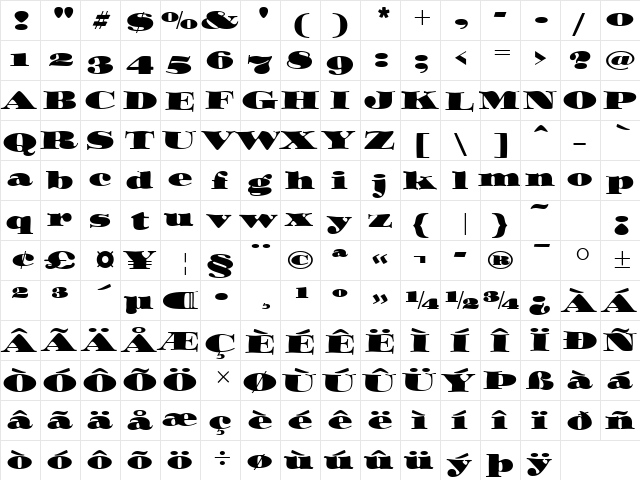
Ozwald OS ITC TT Regular
Design Context for Ozwald OS ITC TT Typeface
Ozwald OS ITC TT is a composed and adaptable typeface that performs quietly and consistently across a wide range of design contexts.